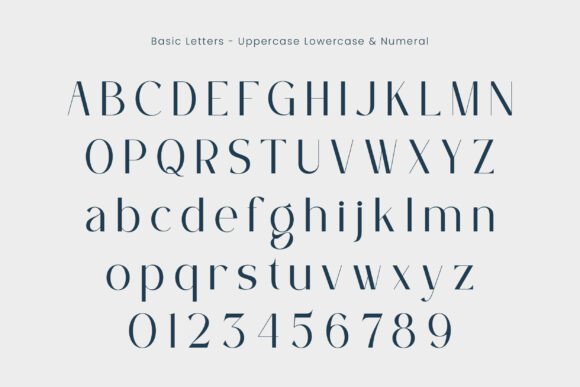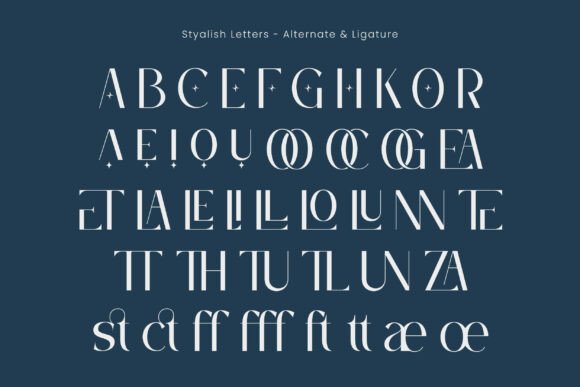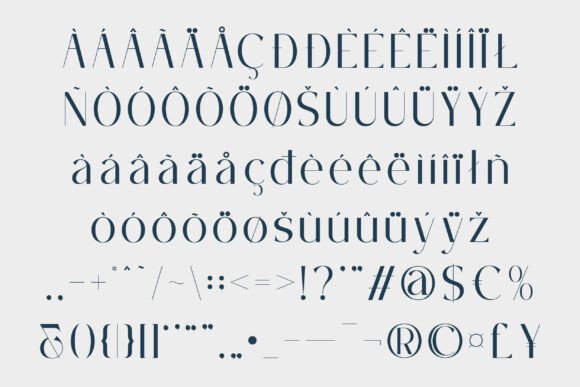
Introduction to Mareto Font
Exude effortless elegance with Mareto, a luxury display typeface that masterfully blends modern sans-serif minimalism with classic serif sophistication.
To add a touch of magic, Mareto features integrated four-pointed star sparkles that elevate its chic, editorial aesthetic It is an exceptional choice for high-end fashion branding, luxury jewelry logos, cosmetic packaging, and premium magazine headers.
Key Features of Mareto Font
Why Choose Mareto Font?